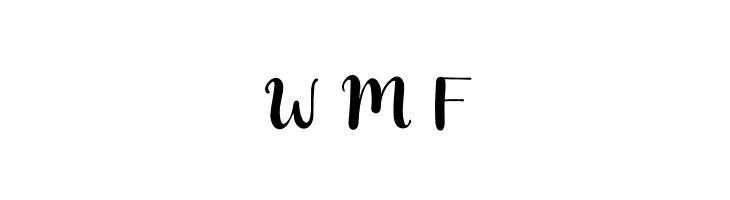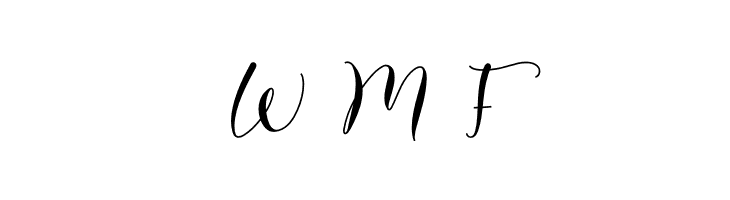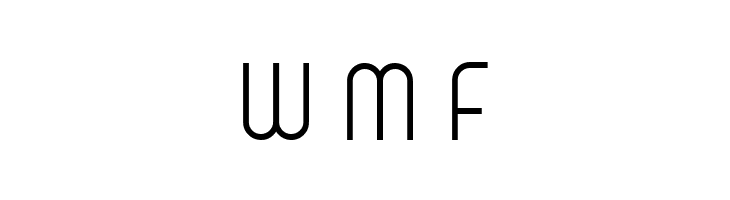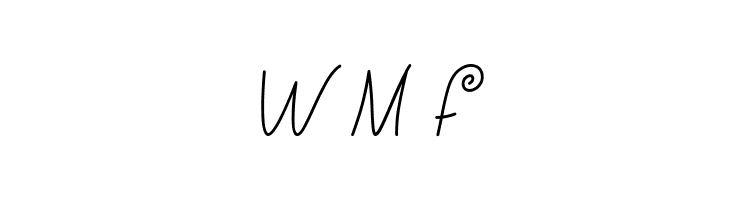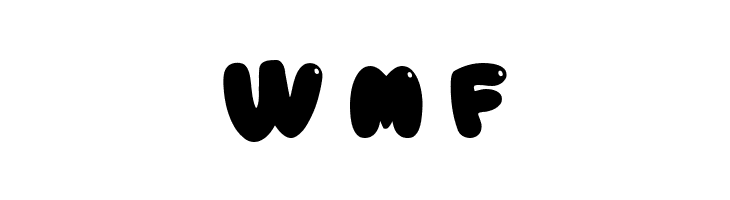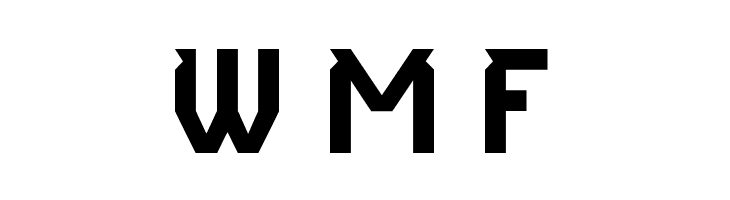
A bold, jagged font with a rugged, hand-drawn style.
A jagged, edgy font with sharp, irregular strokes and a hand-drawn appearance.
A dynamic, cursive script font with expressive flourishes and ink-like texture.
A playful, bold font with whimsical, cartoon-like characters.
A bold, rounded font with a playful and chunky style.
An elegant, flowing script font with a classic calligraphic style.
A modern, geometric font with clean, rounded edges and uniform stroke width.
A bold, three-dimensional font with a playful and dynamic style.
A playful, bold handwritten font with irregular, organic letterforms.
An elegant serif font with classic, refined characters and slight stroke contrast.
A modern, elegant script font with flowing, cursive characters.
A bold, playful font with abstract, patterned interiors and thick outlines.
Bold, blocky font with a shadow effect for a three-dimensional look.
A graceful and flowing script font with elegant curves and a sophisticated style.
A whimsical script font with elegant swirls and loops.
A playful and artistic script font with bold, cursive letterforms.
A bold, blocky font with a strong, industrial feel.
A sophisticated script font with flowing, elegant curves and a modern classic appeal.
A playful, bold font with rounded, bubble-like characters.
An ornate, decorative font with intricate leaf embellishments.
A bold, outlined font with a modern and structured appearance.
A playful, hand-drawn font with rounded, whimsical characters.
A whimsical, handwritten font with playful swirls and loops.
A dynamic, expressive script font with bold, sweeping strokes.
A whimsical, hand-drawn font with decorative stripes and curly lowercase letters.
Hand-drawn decorative font with whimsical heart doodles.
A playful, rounded font with smooth curves and a friendly aesthetic.